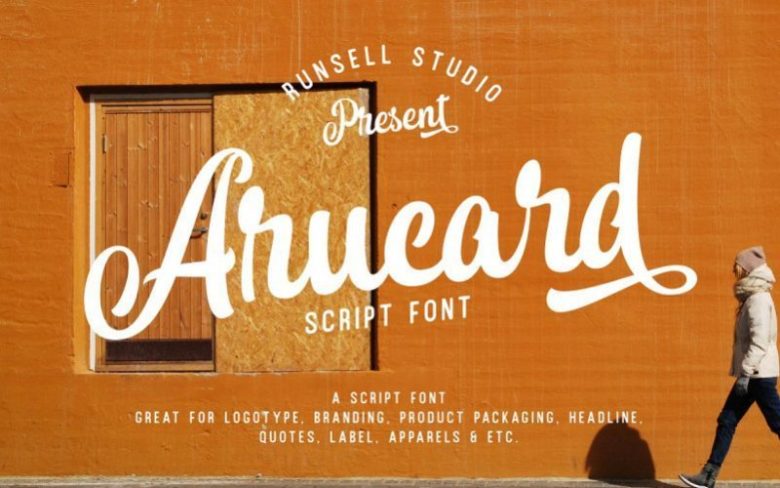
Arucard Brush Font
Arucard is perfect for branding project, logotype, label, product packaging, headline, letterhead, typography, apparels, or simply as stylish text to any background image.